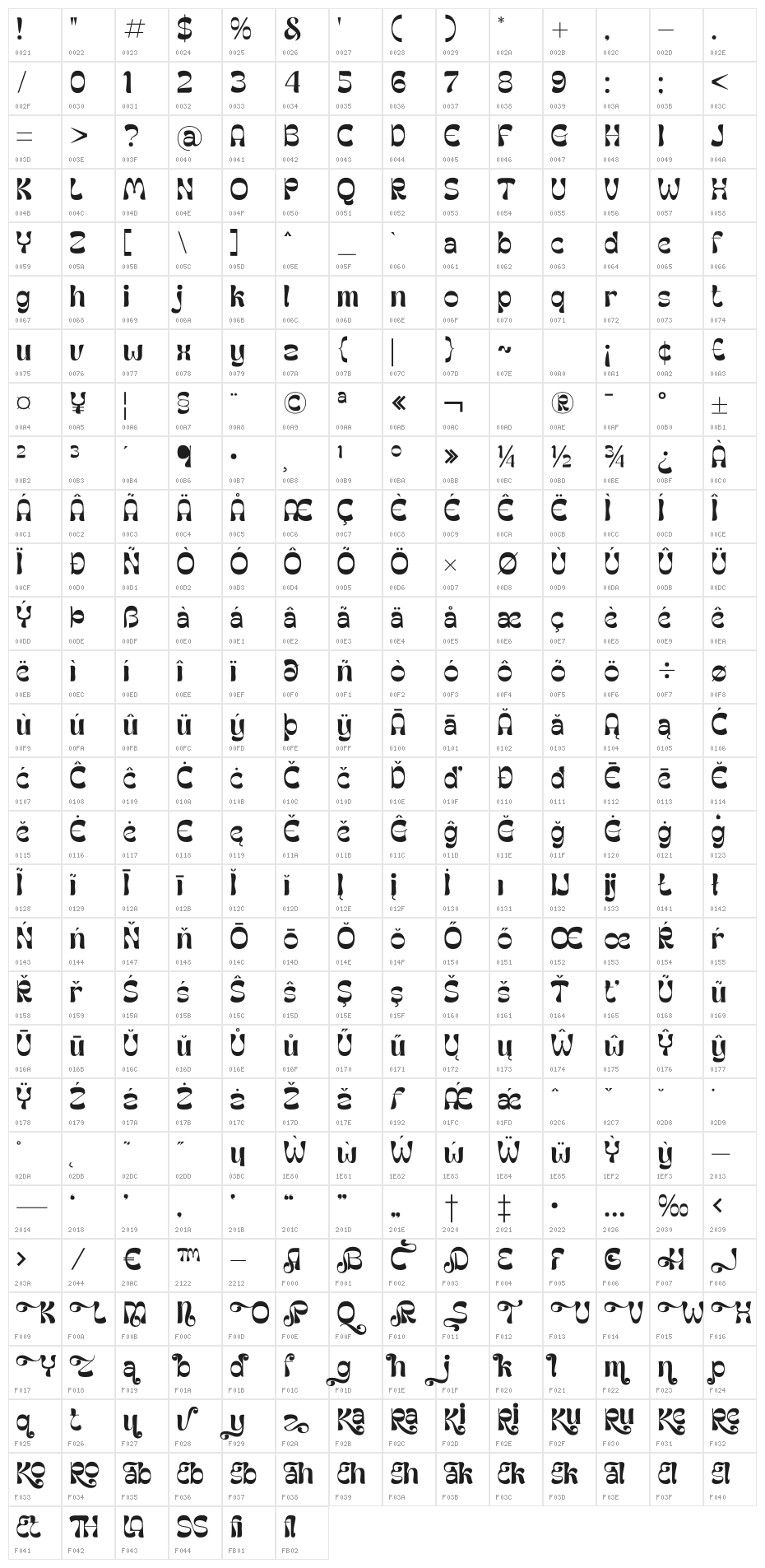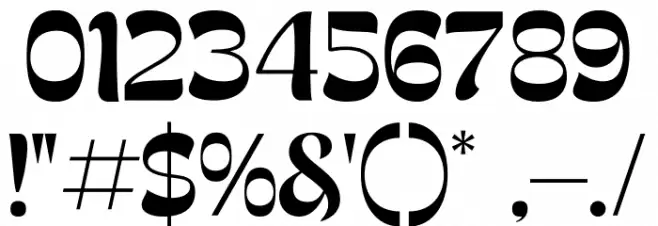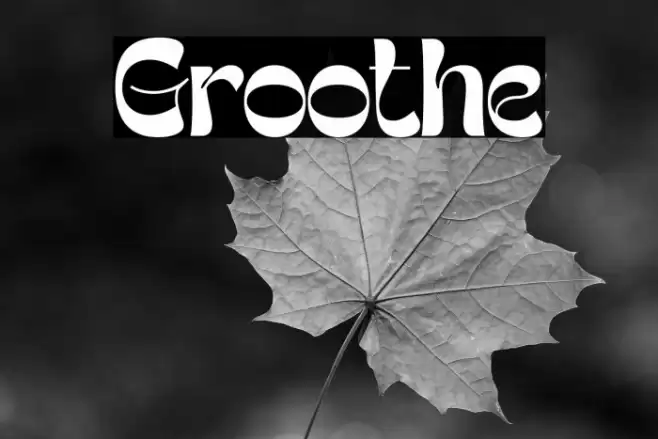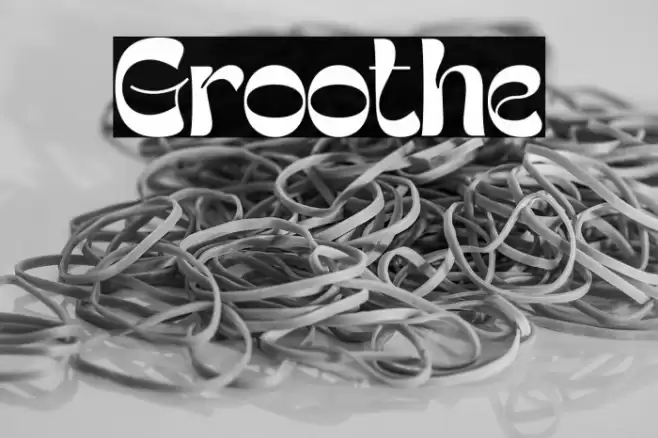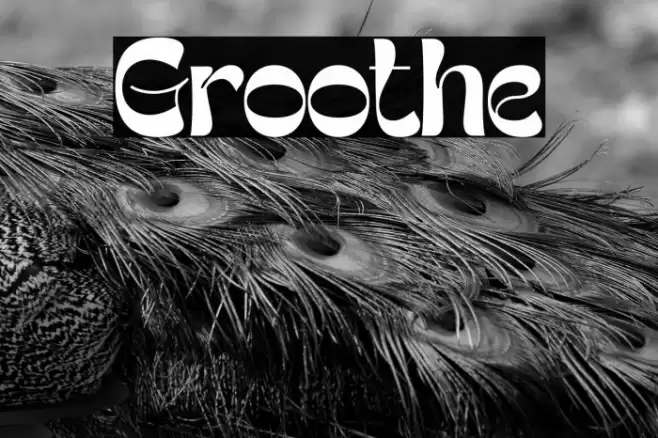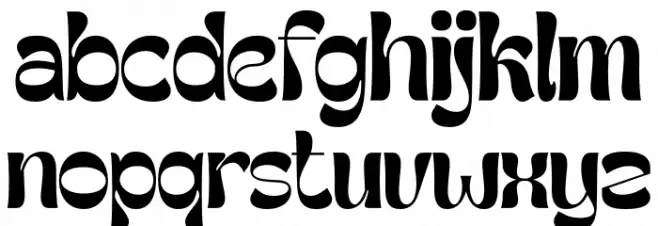
Groothe Font
Groothe Description
This font features a bold and playful design with a unique, rounded style. The characters are thick and have a distinctive flow, with curves and angles that create a lively and dynamic appearance. The uppercase and lowercase letters maintain a consistent style, while the numbers and special characters complement the overall aesthetic. The font's boldness and artistic flair make it stand out, offering a modern yet retro vibe that is both eye-catching and versatile.
| Overall Style | Modern, Retro |
| Proposed Projects | Ideal for branding, posters, album covers, and any project that requires a bold and artistic touch. |